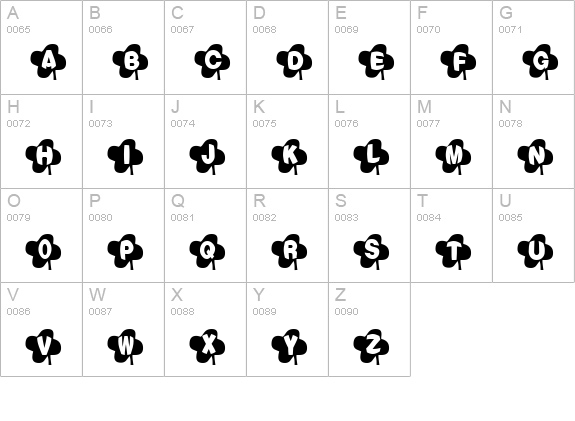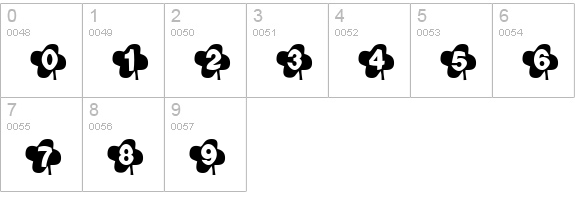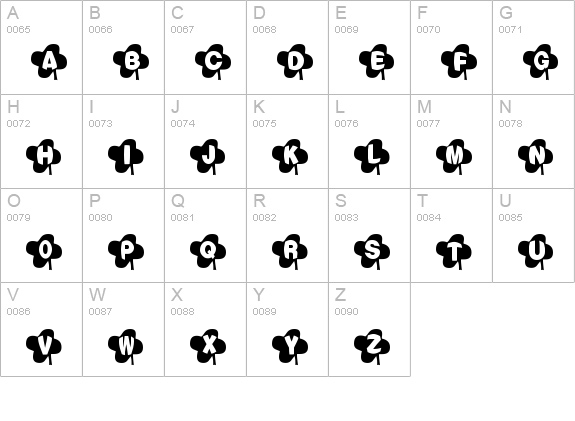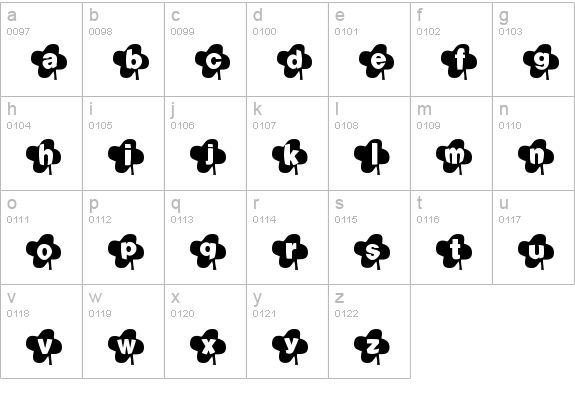
Lucky Font Font Details
Introducing Lucky Font - a charming and whimsical typeface that will bring a touch of playfulness to your design projects. This unique font features quirky and irregular letter shapes, giving it a fun and eclectic vibe. Perfect for adding a cheerful and lighthearted feel to invitations, posters, branding, and more. The best part? Lucky Font is available for free download at FontsMarket.com! This means you can easily access this delightful font and start using it in your projects right away. Whether you're a seasoned designer or just starting out, Lucky Font is sure to inspire creativity and bring a touch of luck to your designs. Don't miss out on this fantastic free font - download Lucky Font today and let your creativity shine!